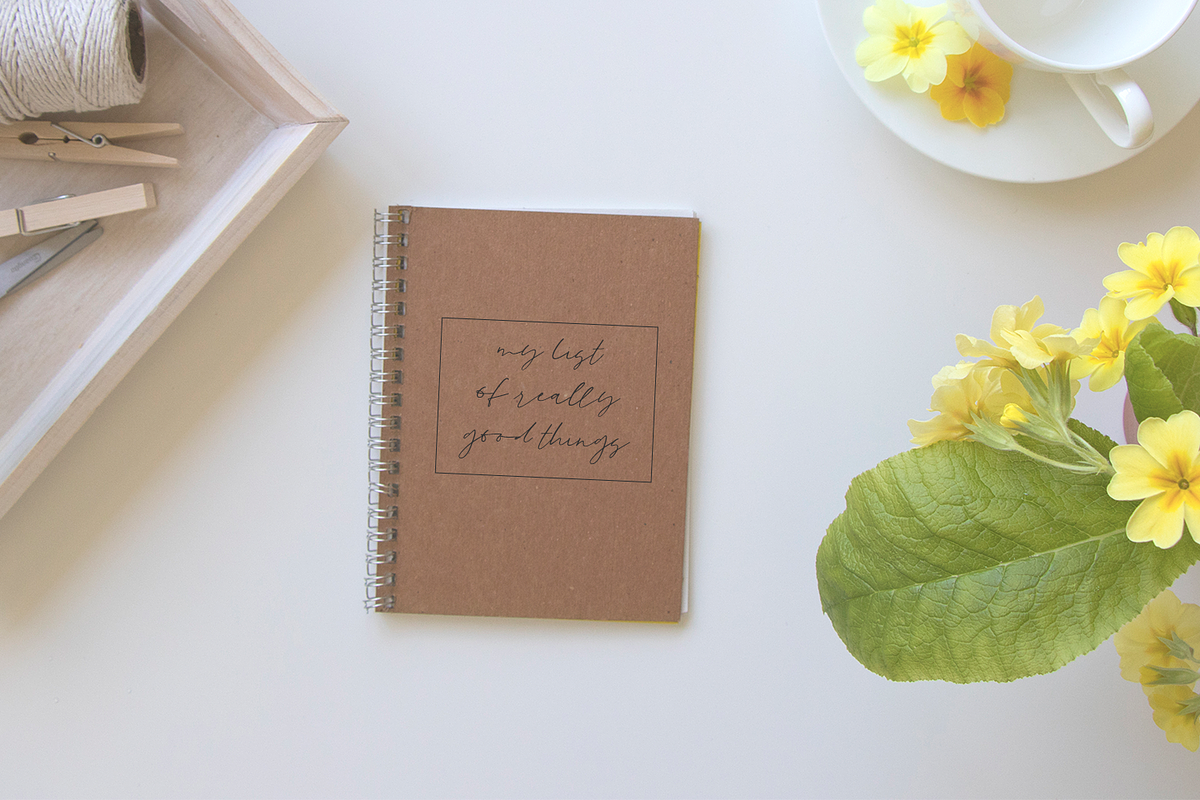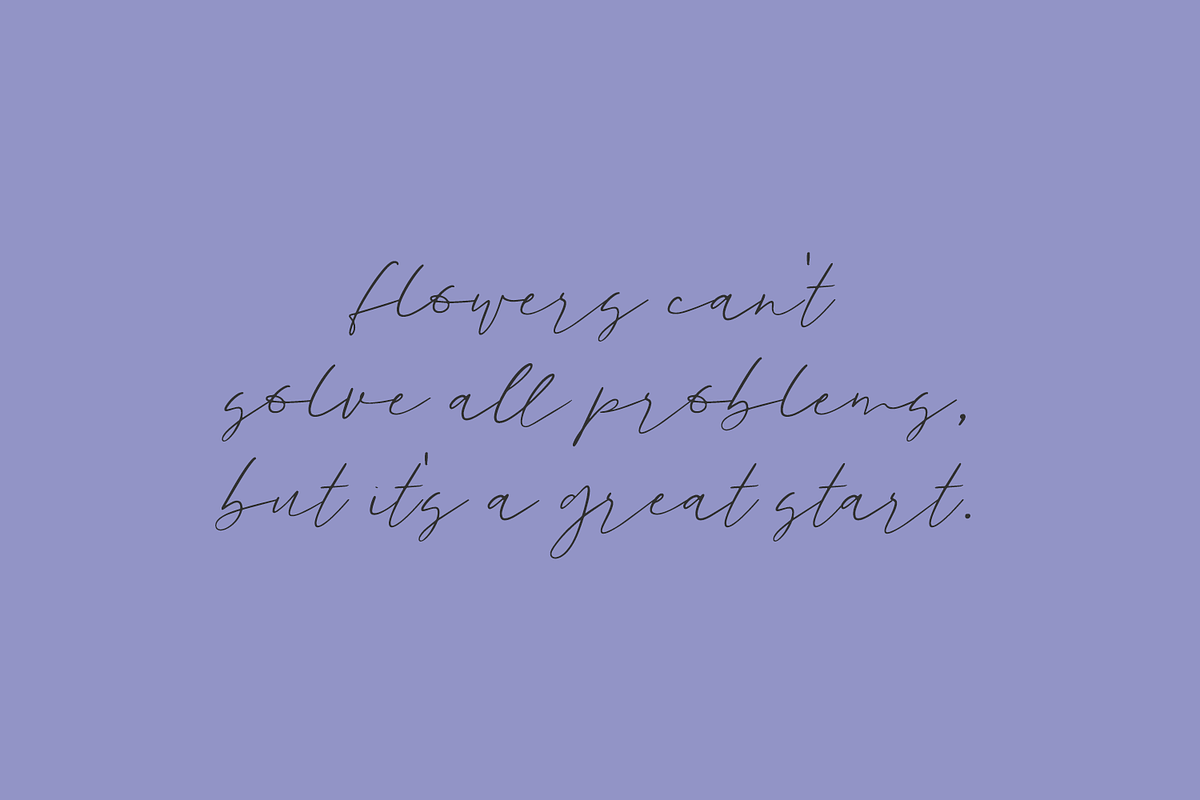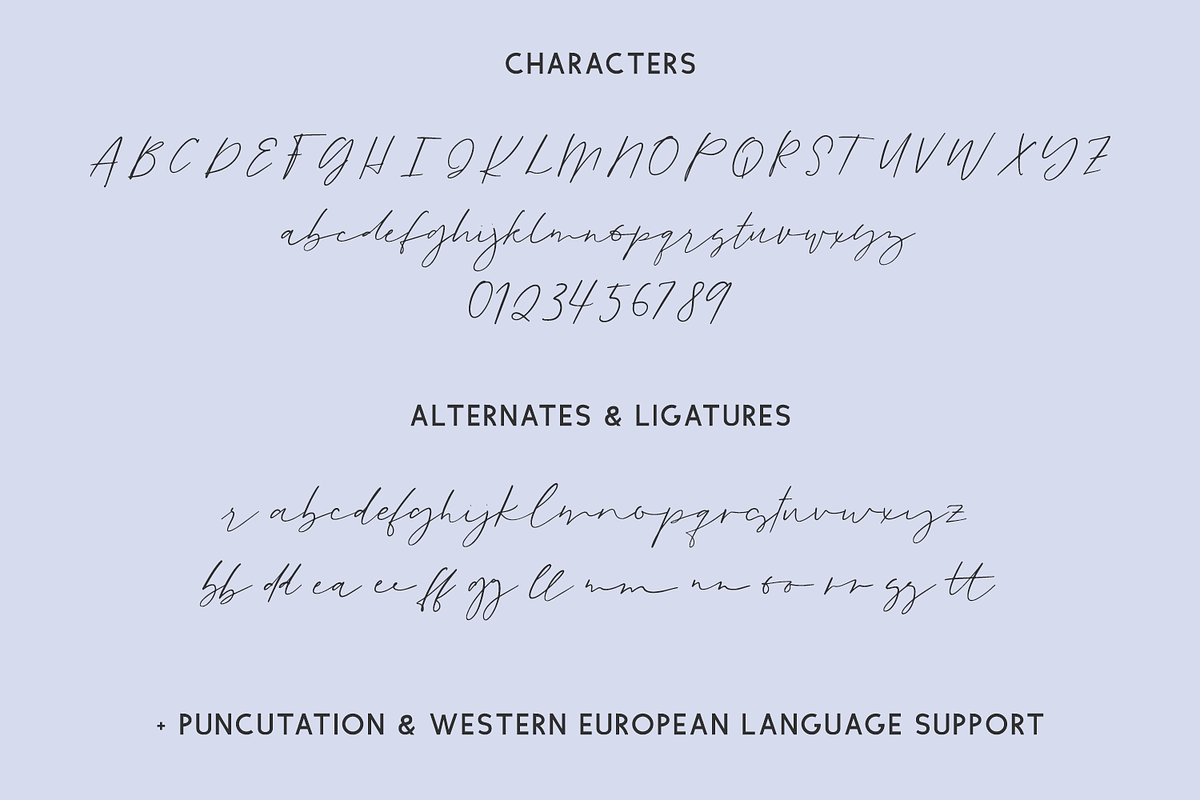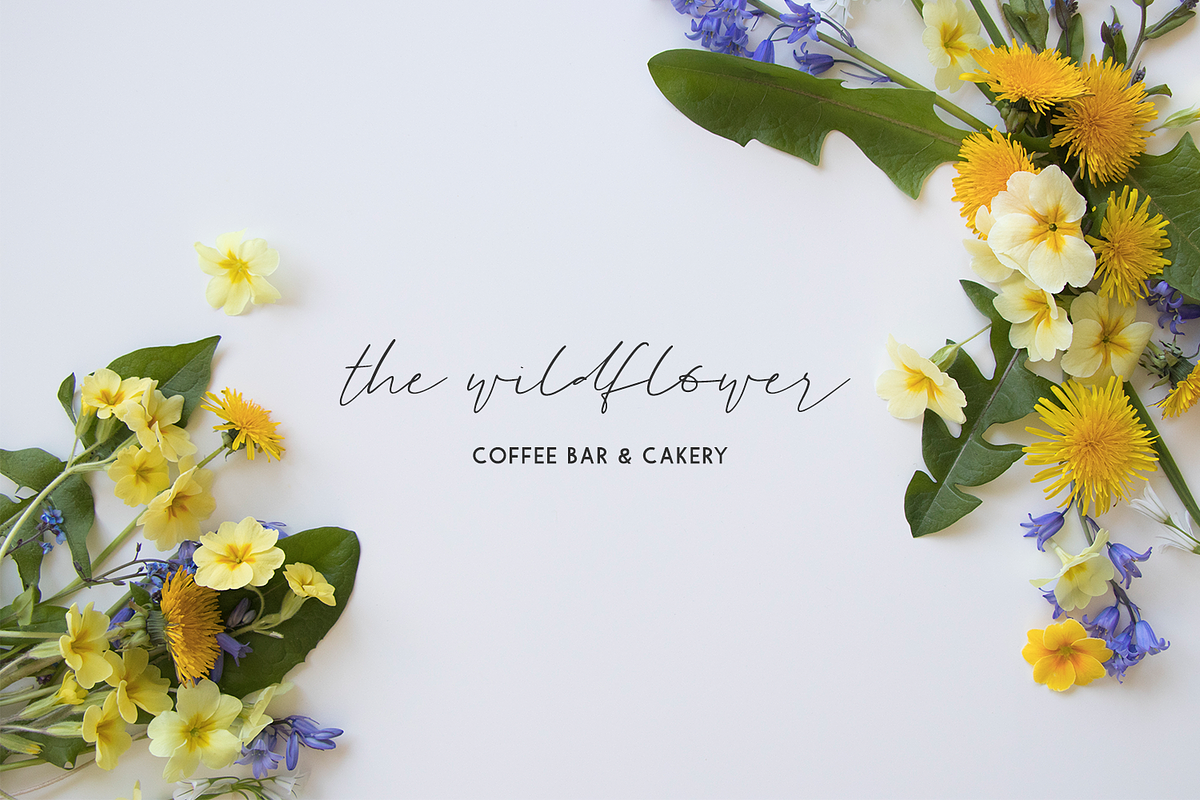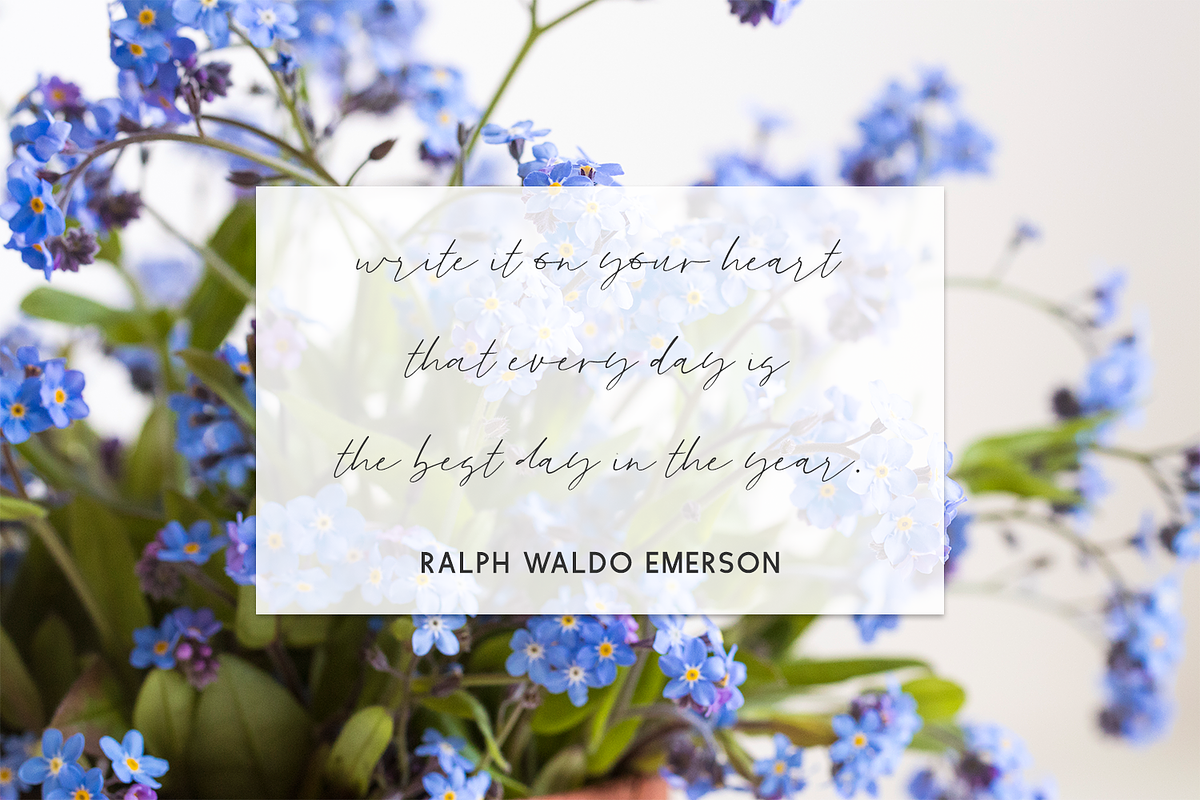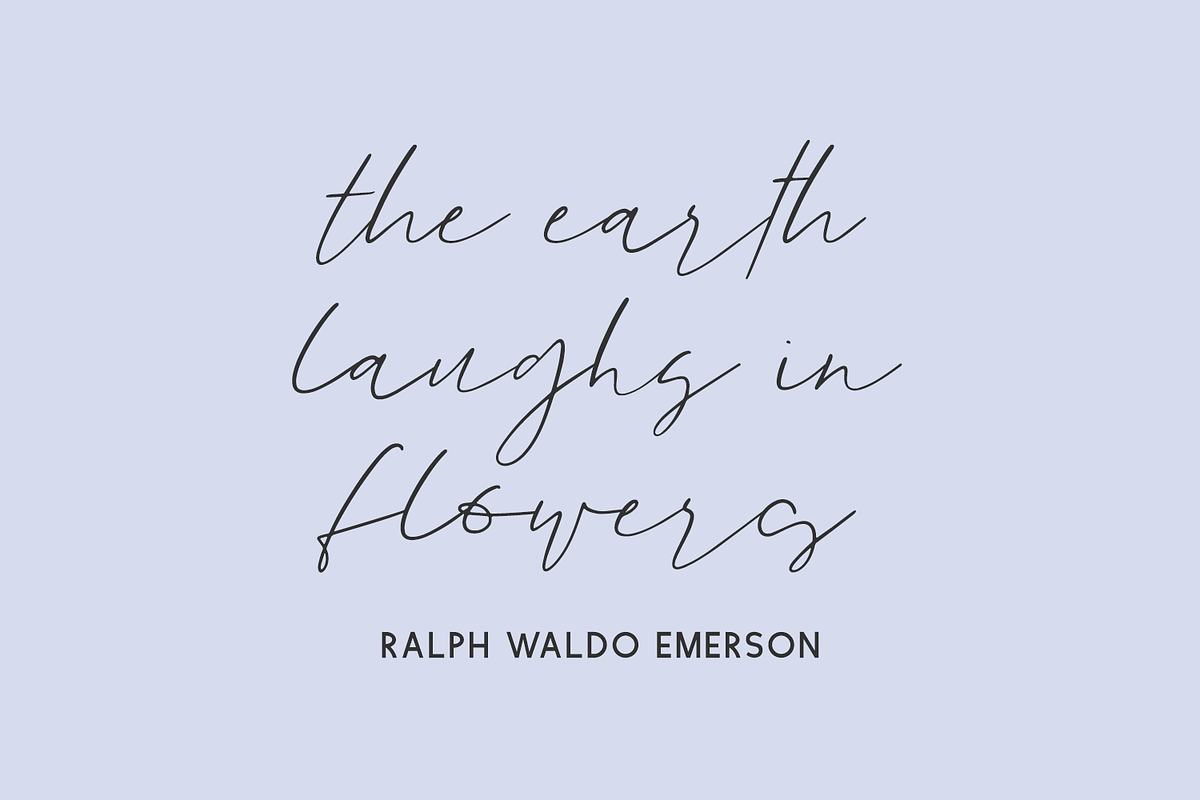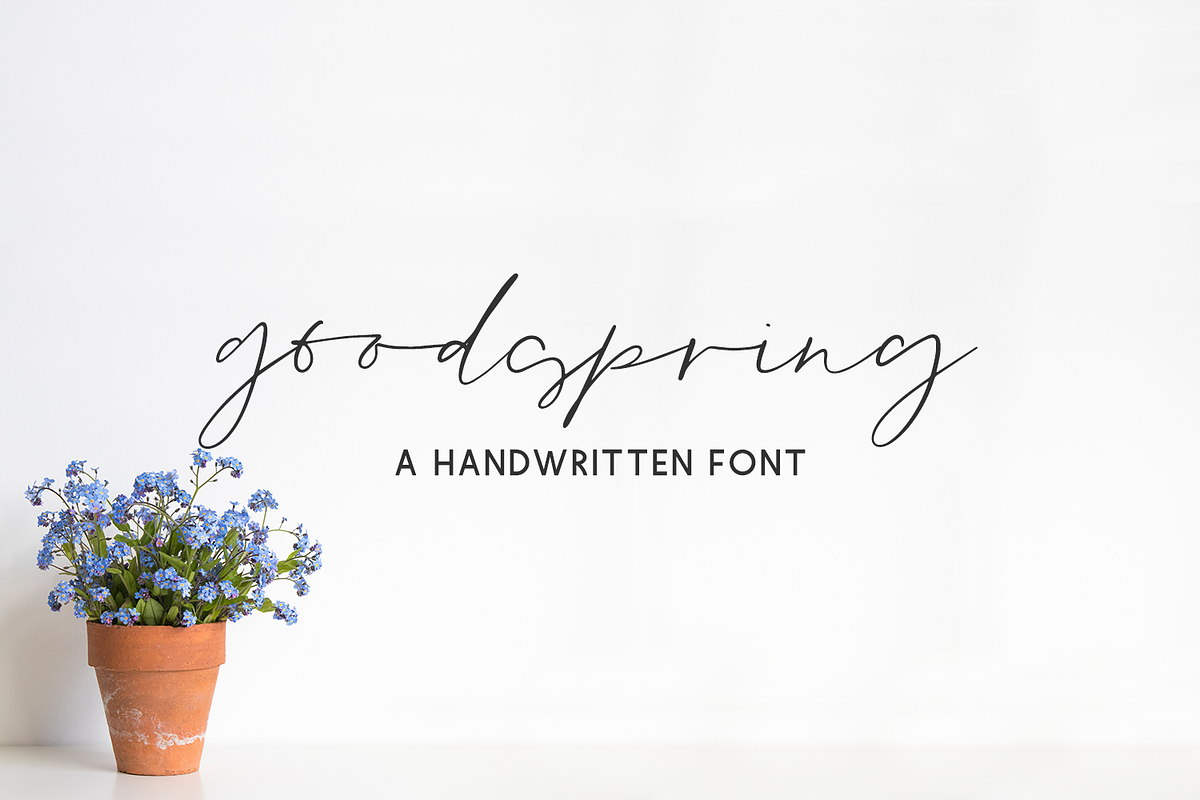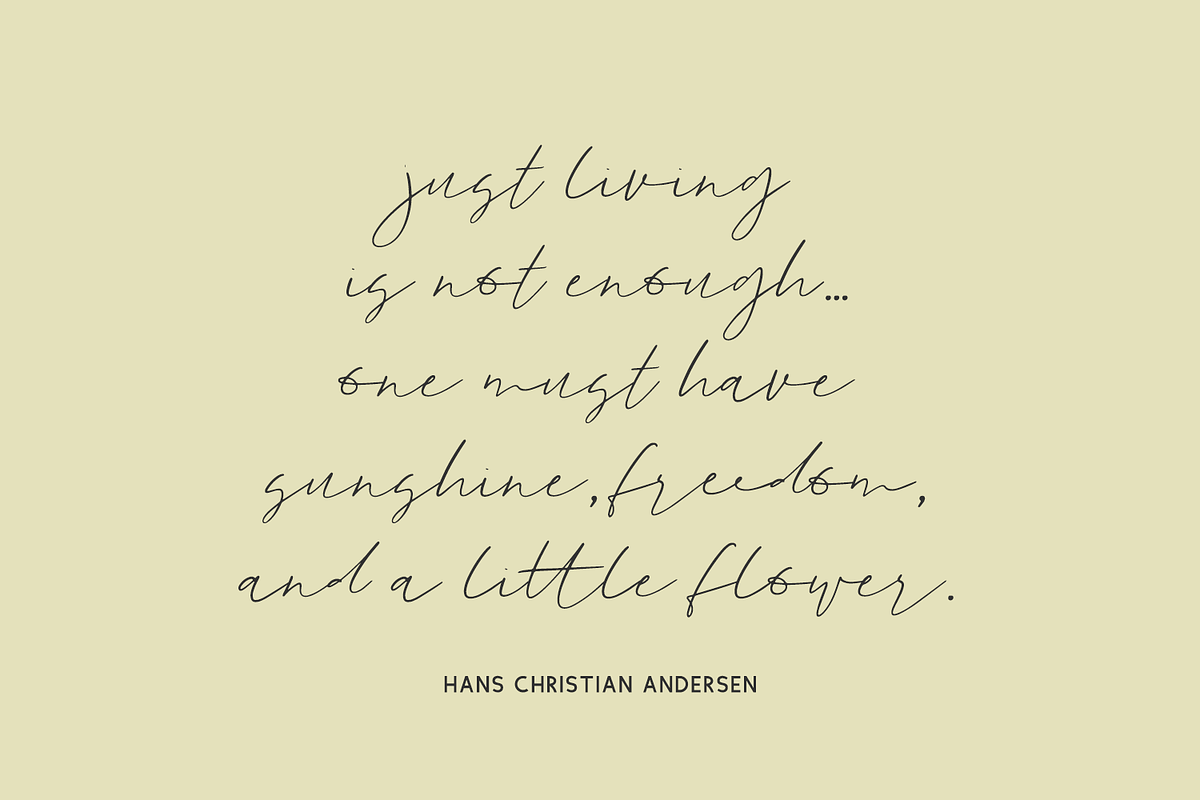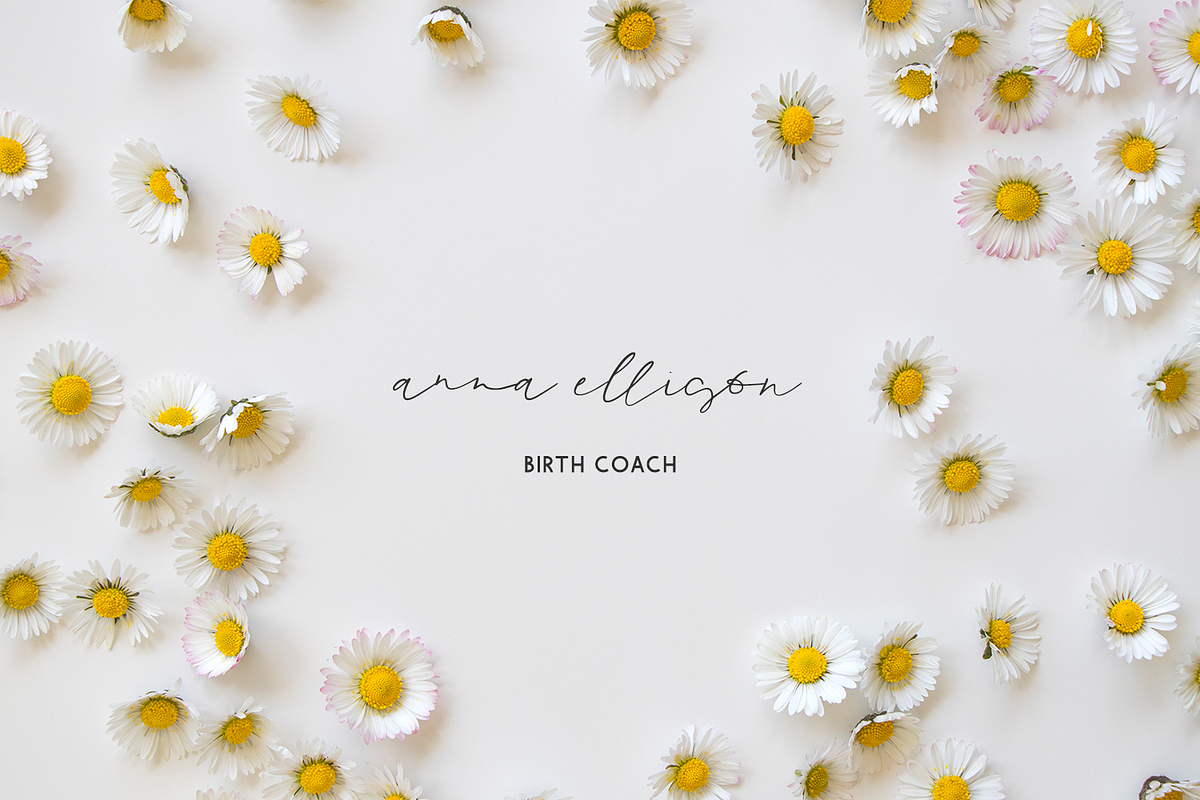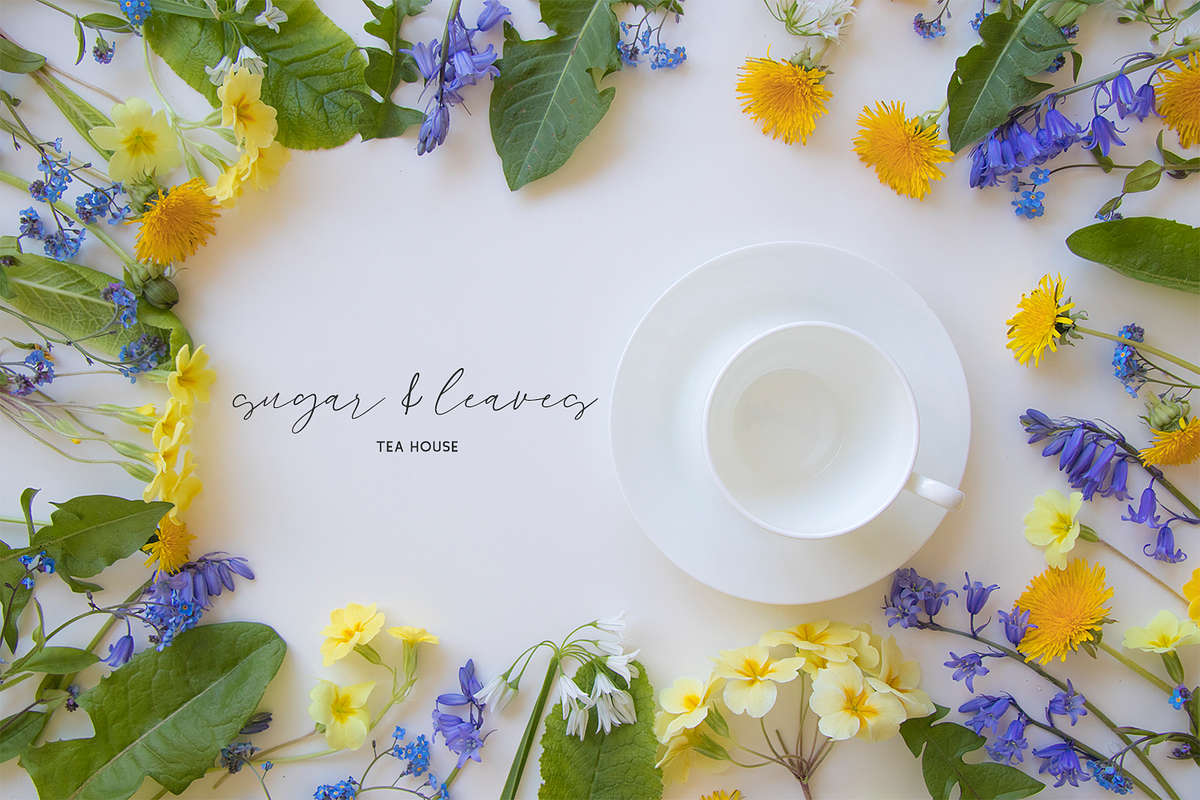
Goodspring Script
Introducing Goodspring, a handwritten signature style font. This wispy thin stylish font features a messy, casual look like handwriting, making it perfect for a signature style logo!
Goodspring is best for:
- logos + branding, like health + life coaches, beauty & cosmetic brands, party & event planner brands
- website design + website accents - think design blogs, travel blogs, fashion blogs, & more
- clean print design, like magazines + flyers
- header elements that need handwritten touch
- quote graphics for social media
Goodspring includes:
- full upper + lowercase characters
- numbers + punctuation
- 27 lowercase alternates
- 13 ligatures - bb, dd, ea, ee, ff, gg, ll, mm, nn, oo, rr, ss, tt
- Western European Language Support